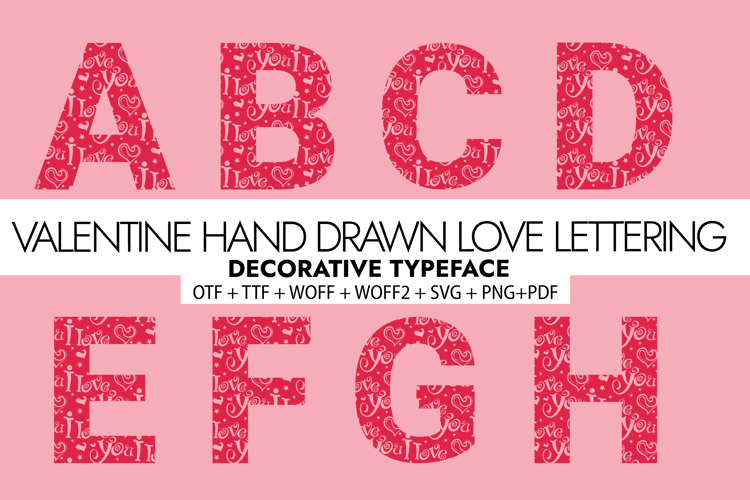
Valentine 's Day 2.0 Font
๐จ Font Name: [Valentine 's Day 2.0] by Minimalist Art Studio
๐จ Font Description: Valentine Hand Drawn Love Lettering is a decorative sans serif filled with playful love motifsโperfect for romantic cards, festive packaging, and seasonal campaigns.